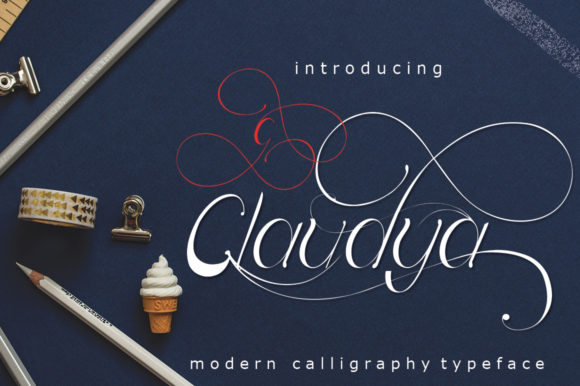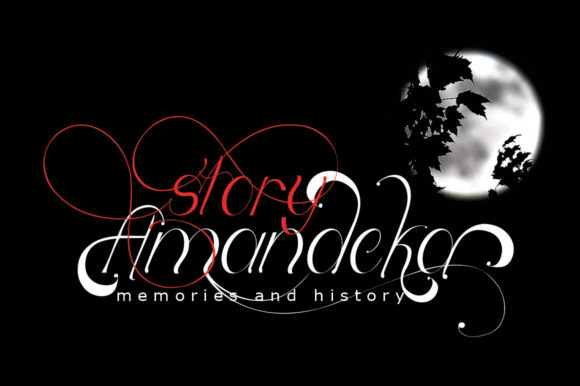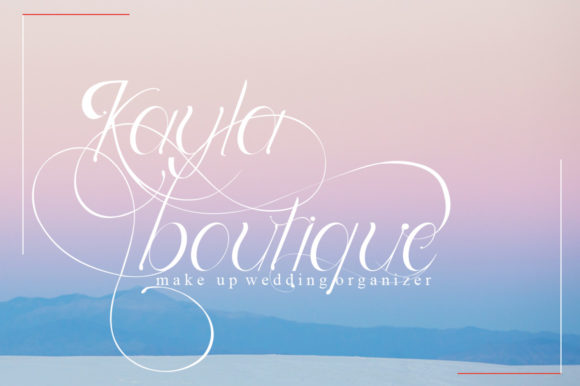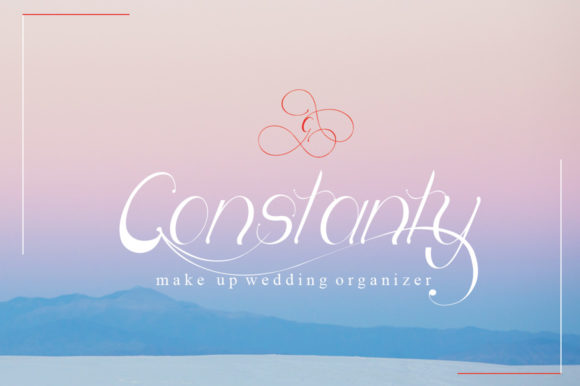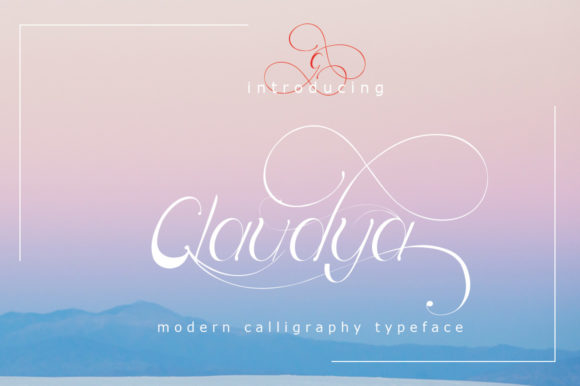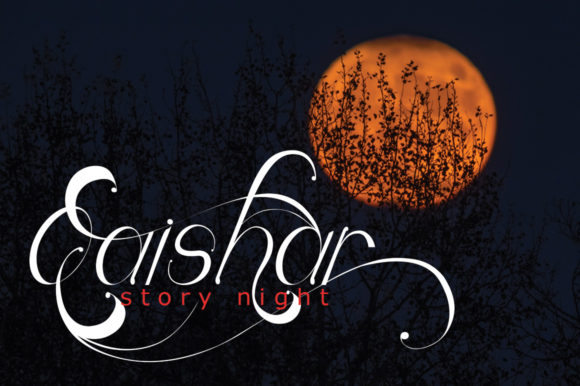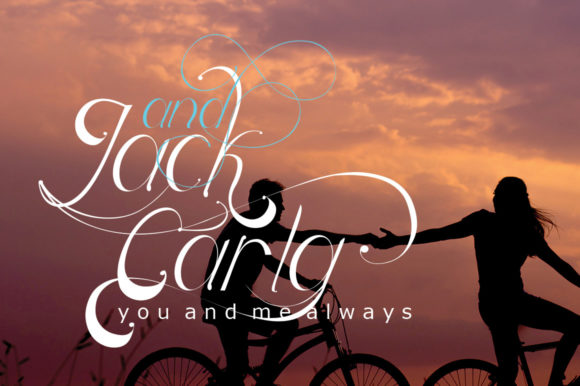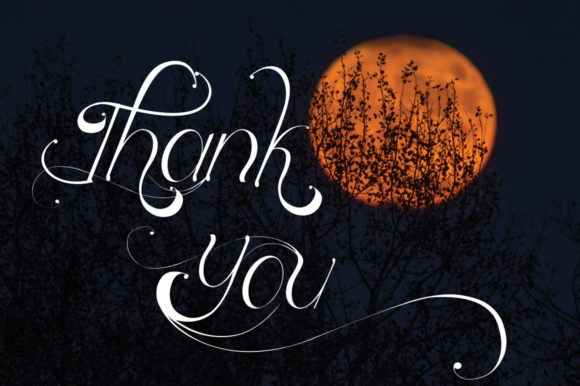
Claudya Font
About Claudya Font
The Claudya is a sweet calligraphy script. It includes beautiful swashes which will give your design an elegant and feminine feel.